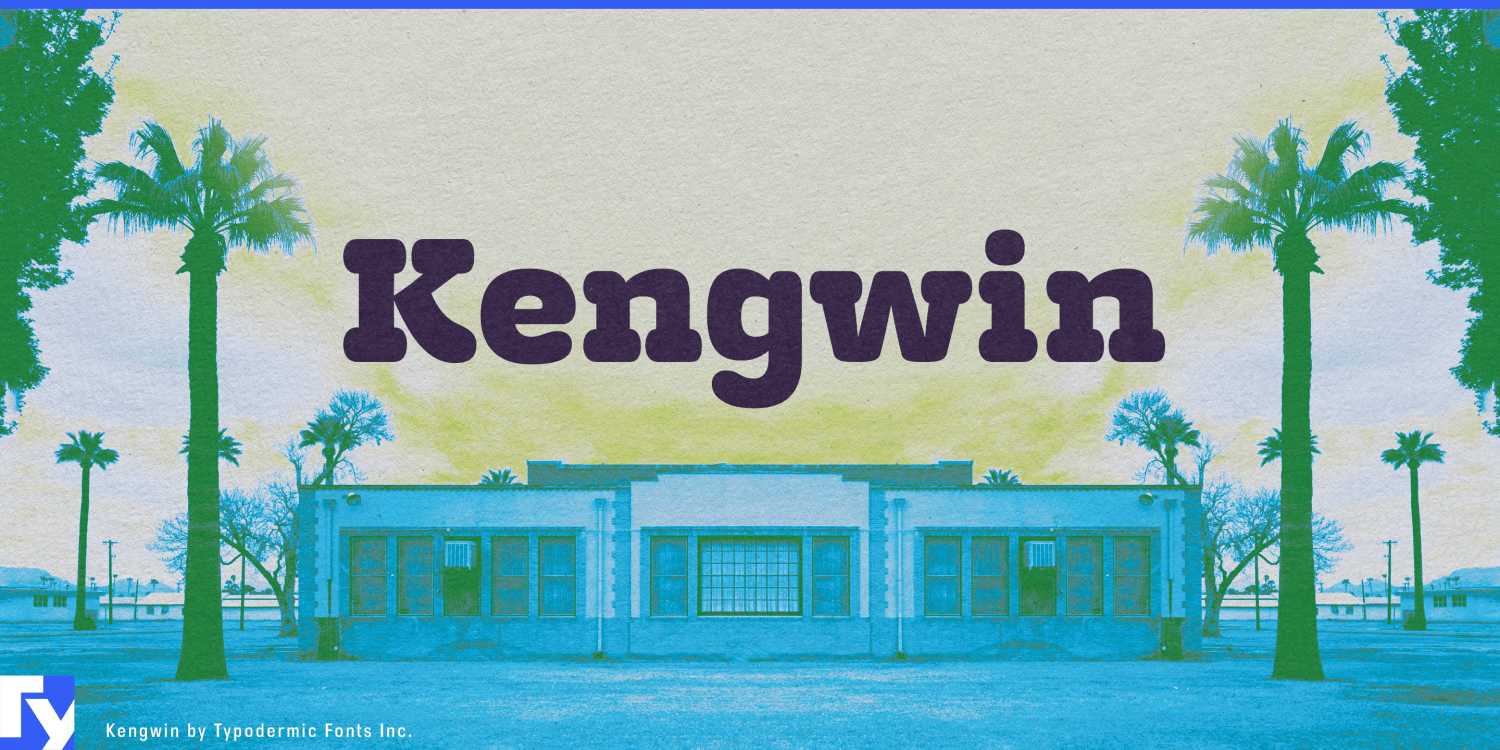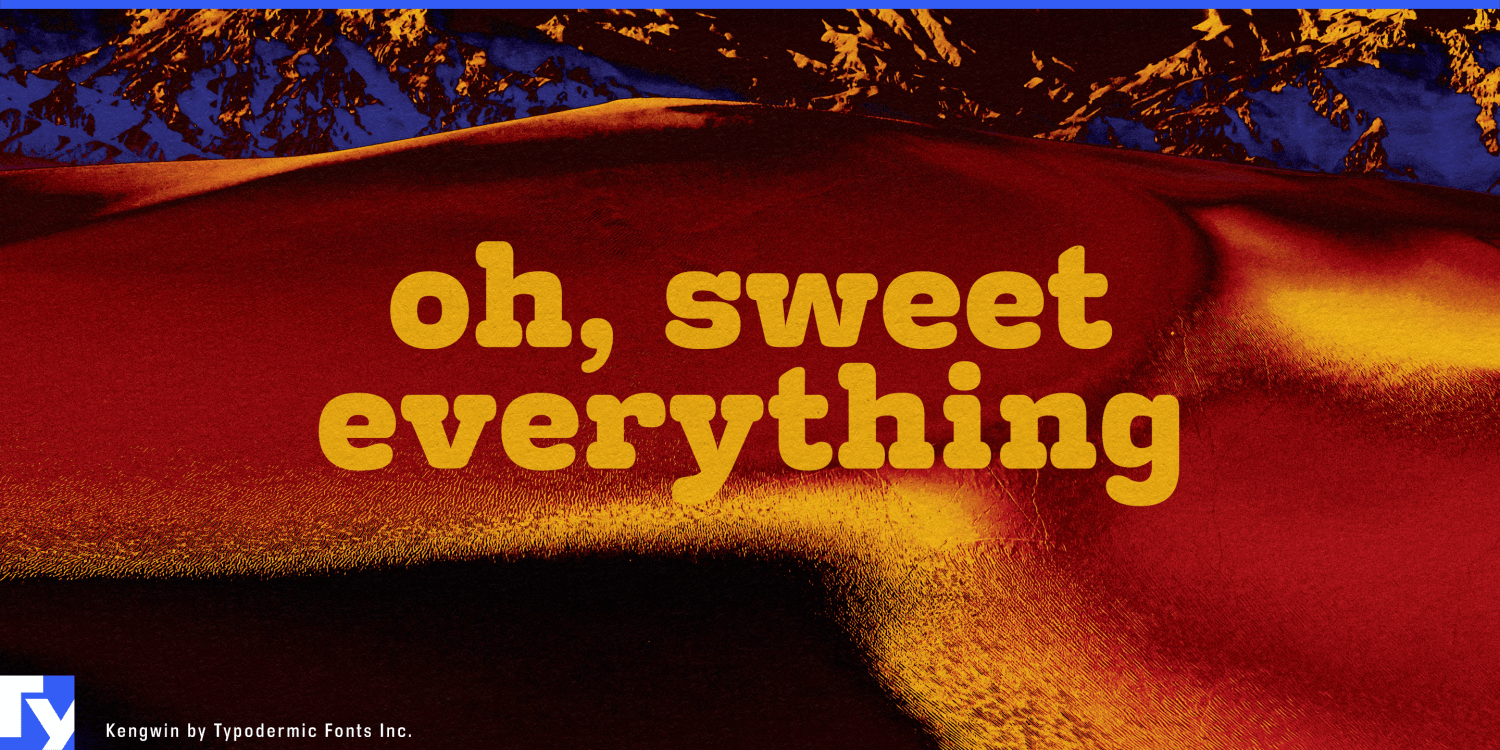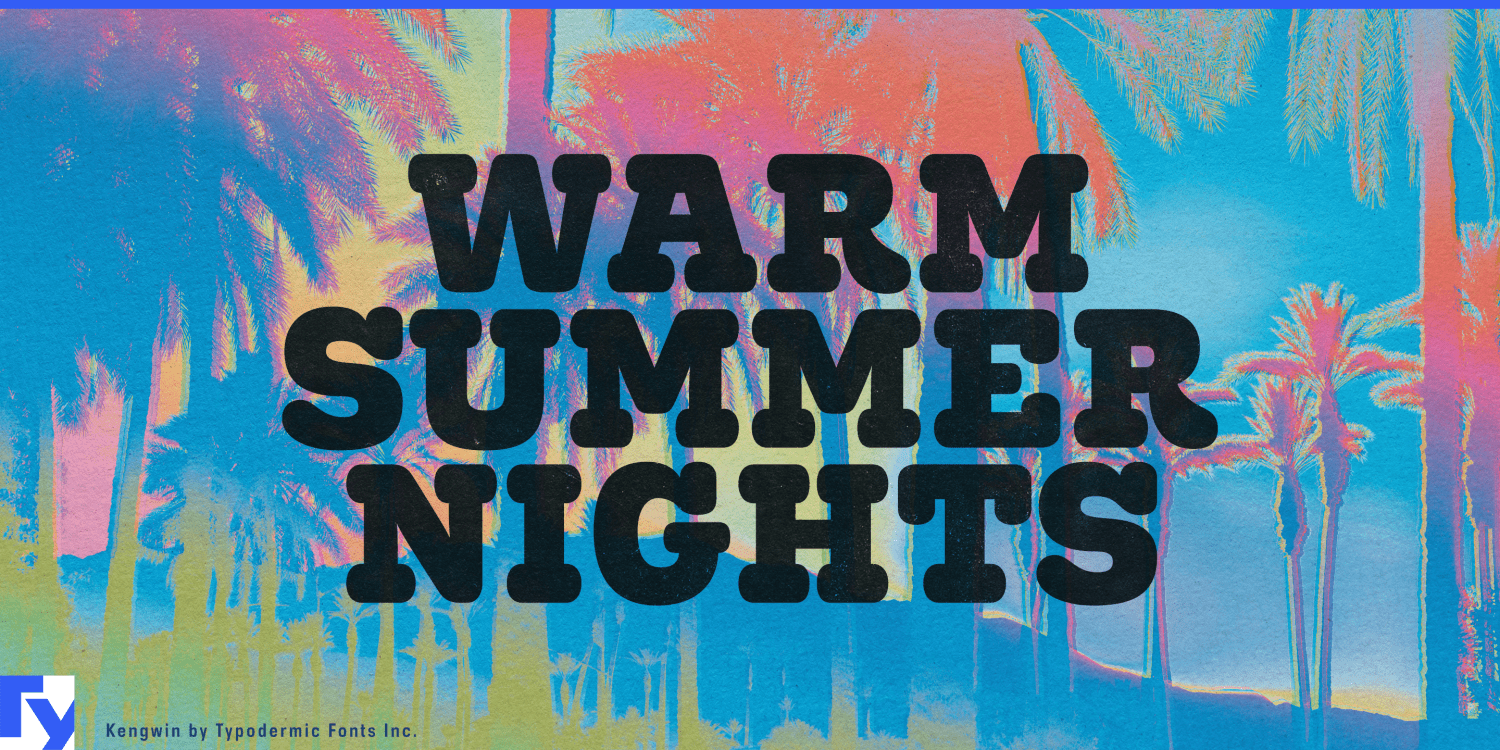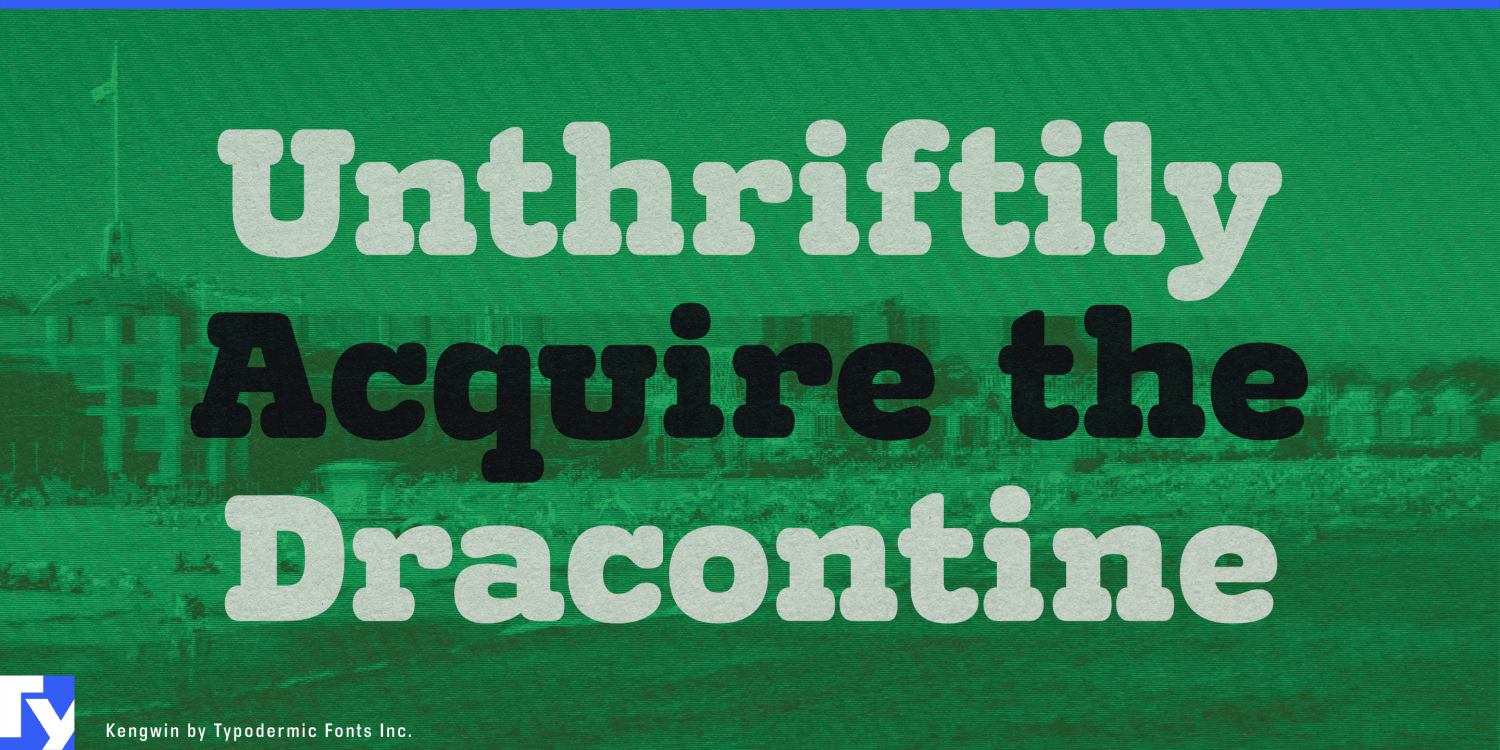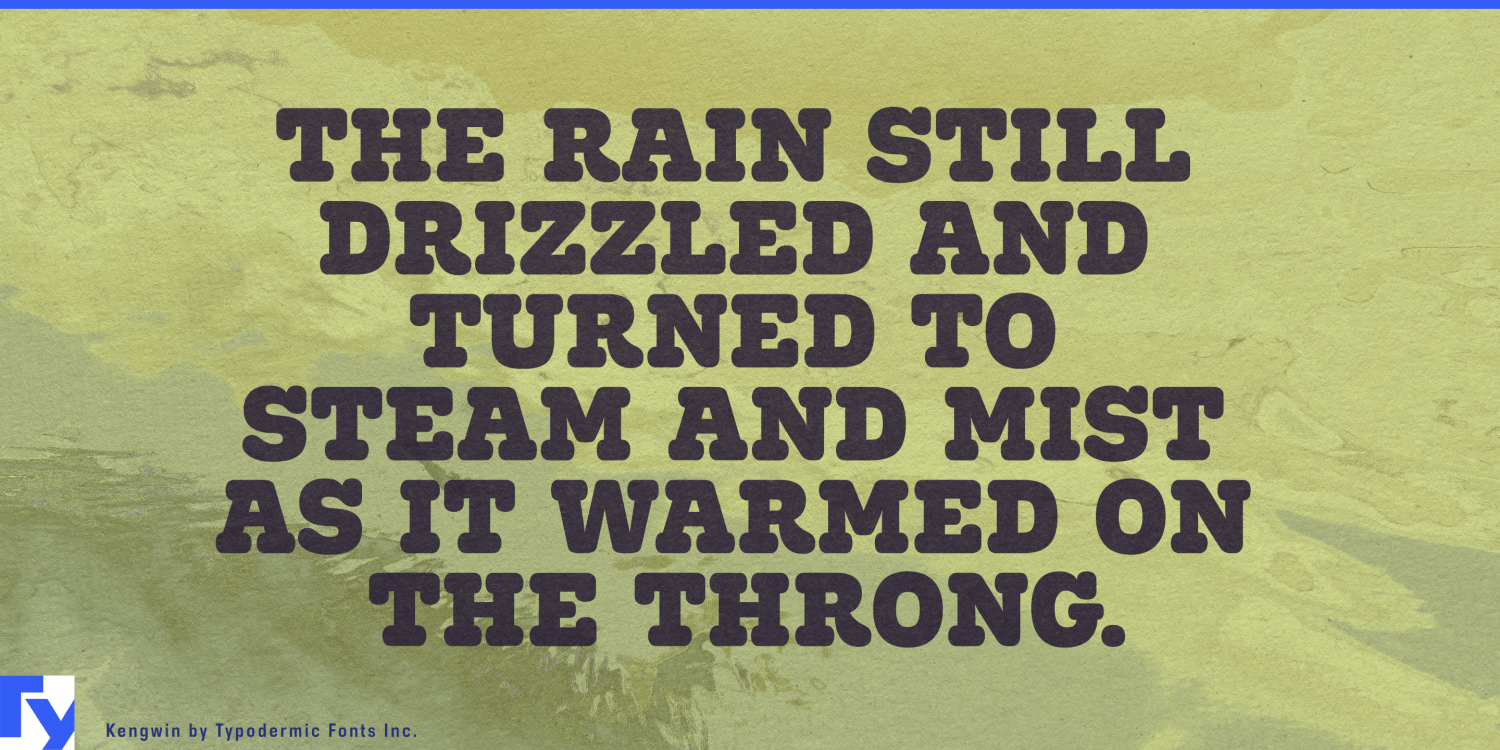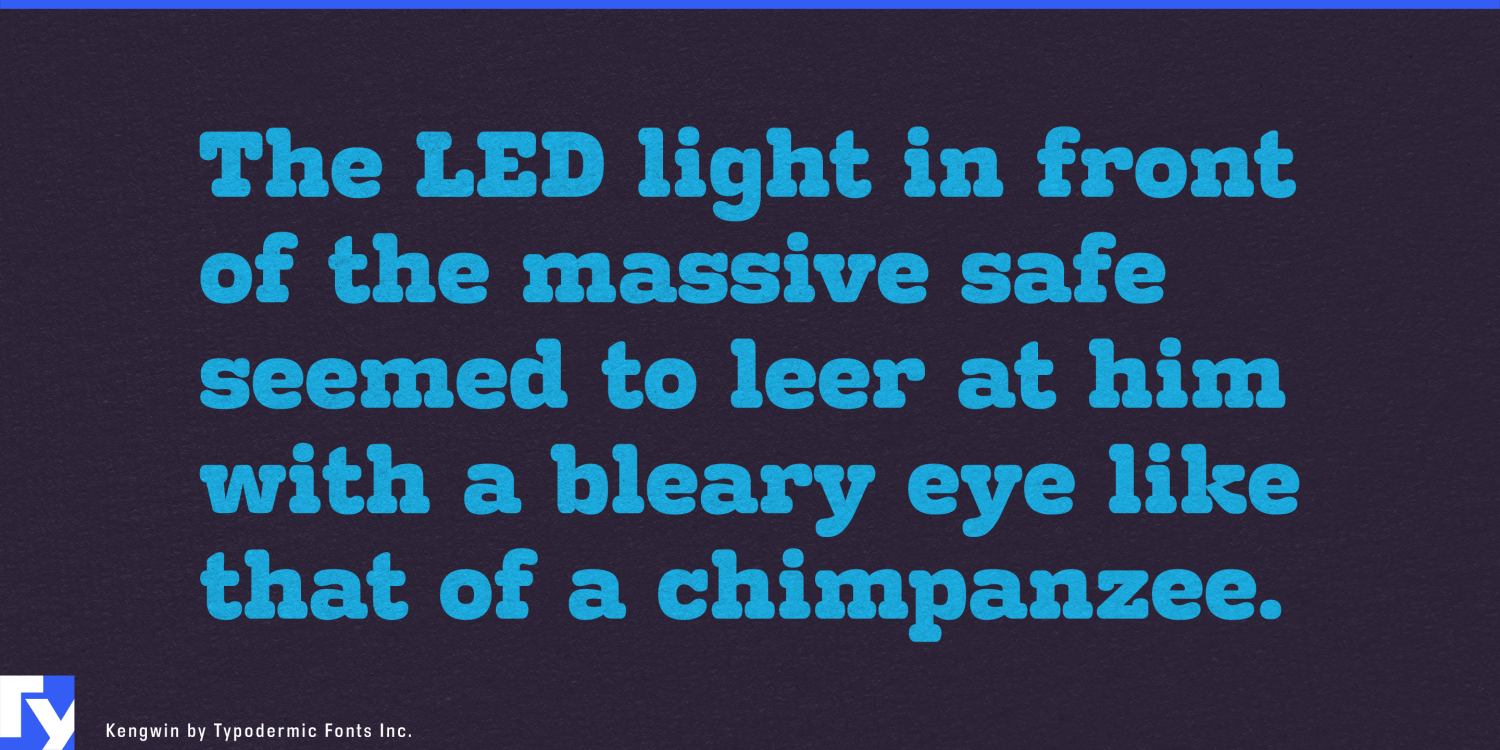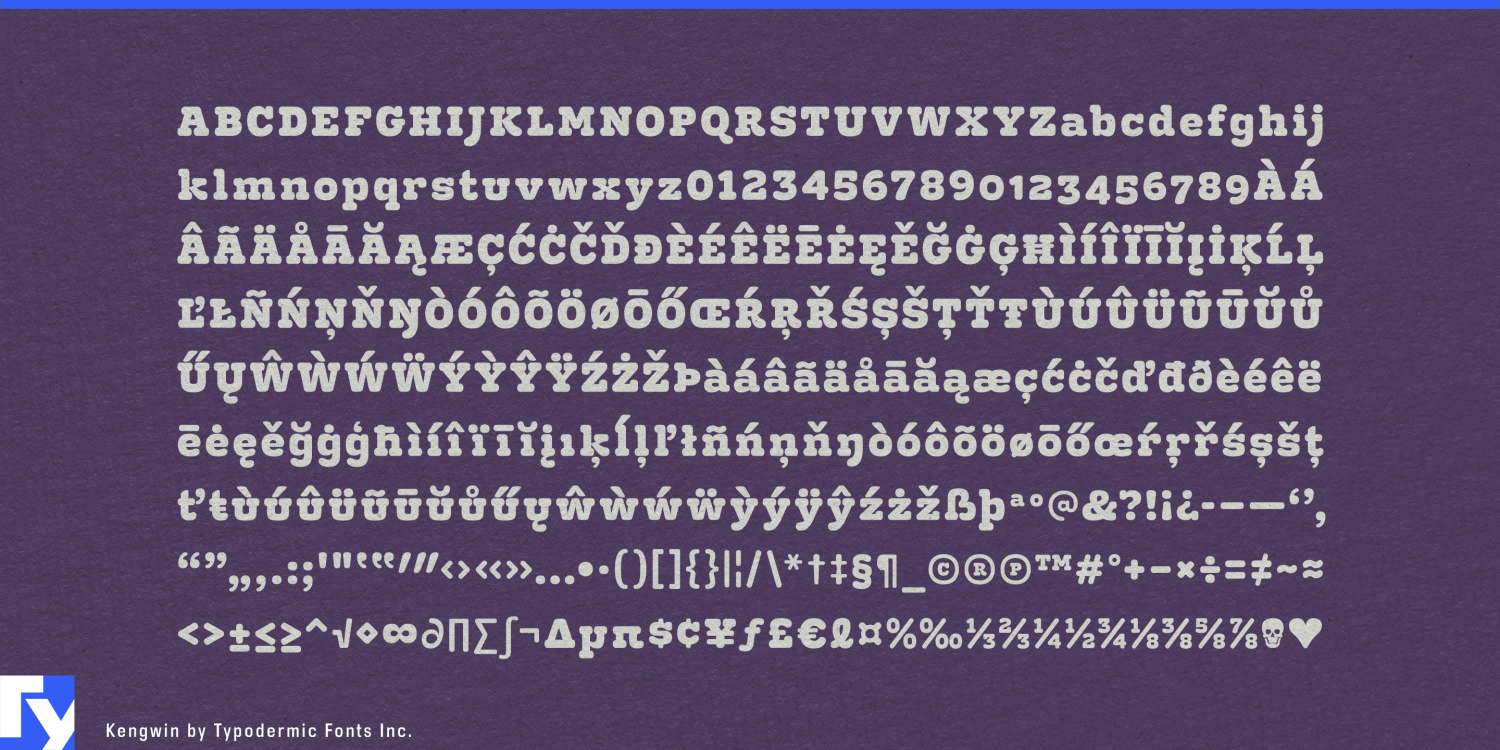
Kengwin
Buy NowBrands aimed at mixed-age audiences often face an awkward typographic choice. Push too far toward bubbly, cartoonish lettering and adults feel like they have wandered into a children’s attraction; clean the identity up too much and the sense of fun disappears. Kengwin occupies the useful space between those extremes, combining broad, substantial letterforms with rounded slab serifs that soften the message without making it juvenile.
That balance makes it especially useful for entertainment venues designed for children, teenagers and adults at the same time. Indoor mini-golf centers, bowling complexes, interactive game venues and mixed recreation spaces need typography for attraction names, party rooms, prize counters, food areas, leagues and seasonal events. Kengwin can make those spaces feel recreational while remaining substantial enough for adult groups, corporate events and evening programs.
Family resorts face a similar problem. Indoor-waterpark hotels, ski resorts, holiday parks and destination properties often contain children’s activities, restaurants, rental counters, game rooms and evening entertainment alongside conventional hotel spaces. Kengwin can identify activity zones, family dining, equipment rental and seasonal programs without forcing the entire property into kiddie graphics.
Functional foods create another useful tension. High-protein frozen desserts, protein cookie dough, fortified brownie bites and other products increasingly combine nutritional claims with formats that are still supposed to look like treats. Clinical wellness typography can make the food feel medicinal; exaggerated confectionery lettering can undermine the functional side of the product. Kengwin has enough structure to support a serious product claim while its rounded forms keep the package appetizing.
Premium pet wellness products encounter much the same challenge. Dental chews, joint-support treats, senior-pet nutrition, freeze-dried rewards and daily supplement chews are purchased by adults making considered health decisions, but they still need warmth and approachability on the shelf. Kengwin can handle product names and benefit categories without drifting toward cartoon imagery or veterinary austerity.
Middle-grade science and learning products provide another natural setting. Home chemistry kits, geology sets, beginner robotics, astronomy activities and mechanical building kits need to look inviting to older children without appearing preschool-oriented. Kengwin’s rounded details make kit names and experiment headings approachable, while its conventional underlying proportions keep the material from feeling simplified or babyish.